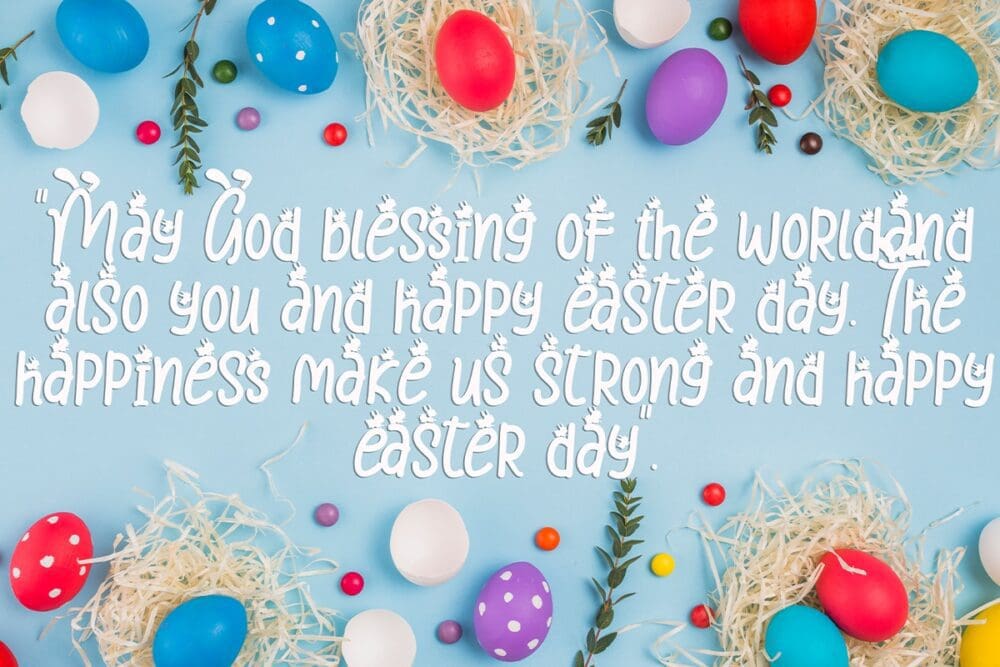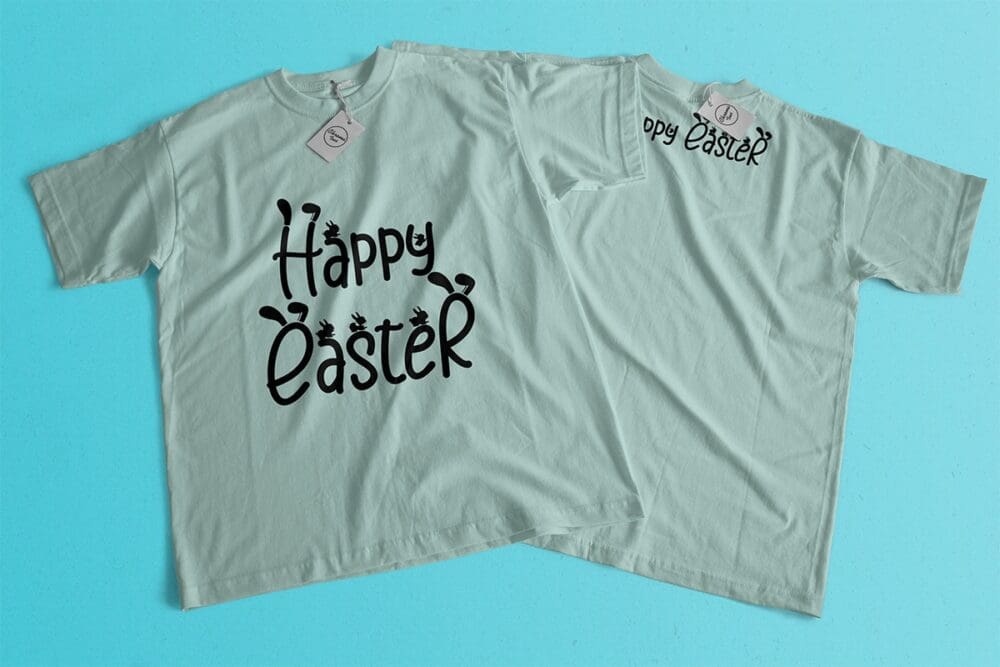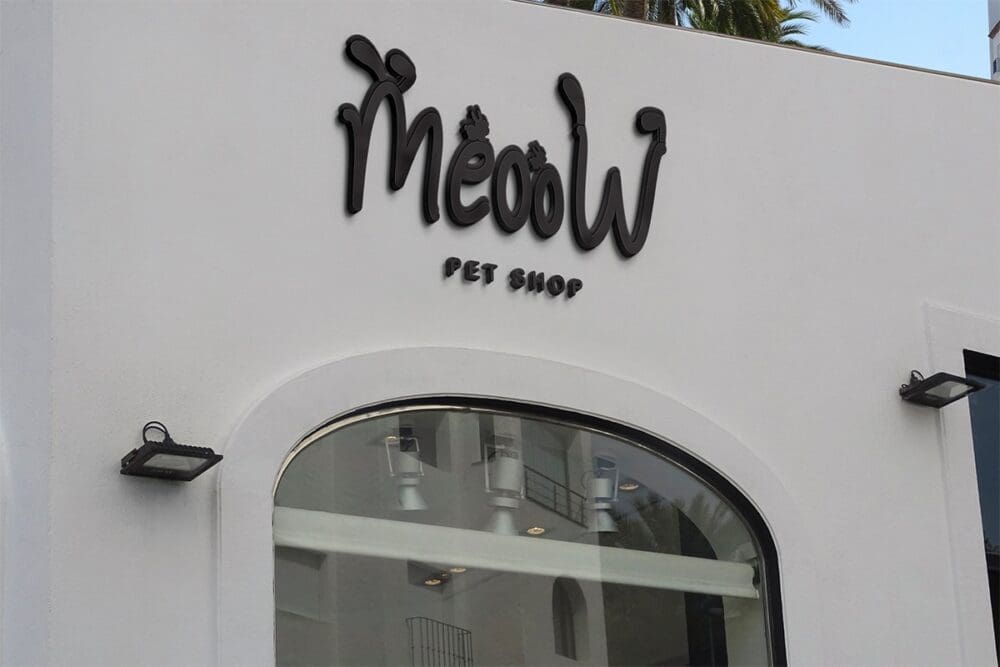
Easter Day Font
Easter Day is a cute and charming display font. Whimsical and a bit quirky, this font will brighten up each of your designs. Add it confidently to your projects, and you will love the results.